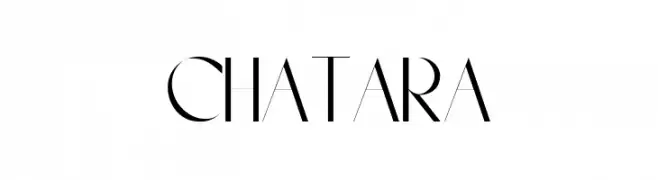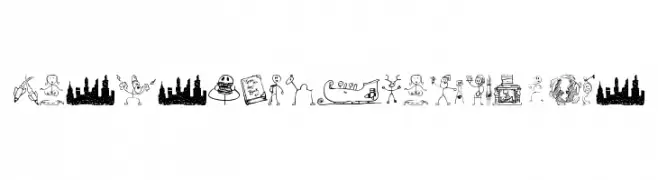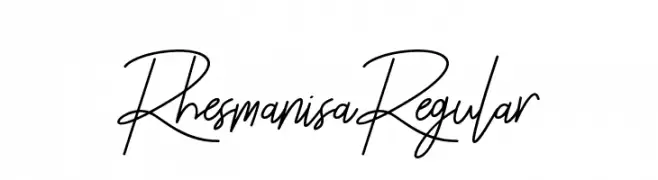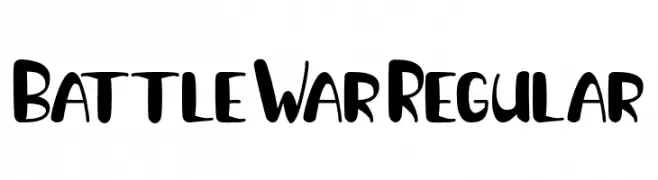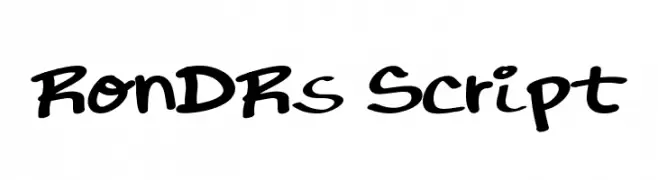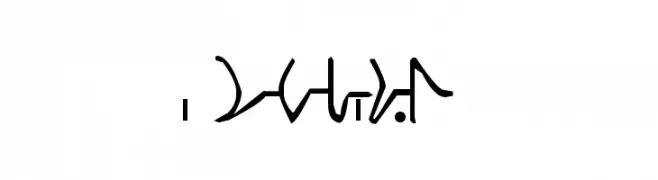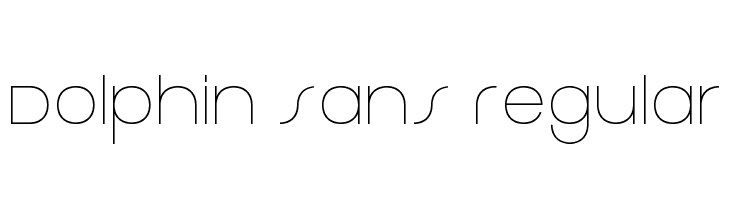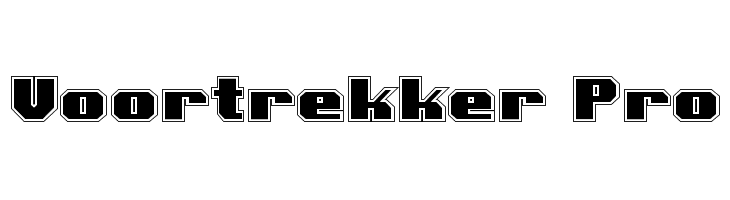
A modern, high-contrast font with sleek, elongated characters.
A playful dingbat font with holiday-themed illustrations.
A fluid, elegant handwritten cursive font with a modern touch.
A bold, dynamic font with playful yet assertive characters and a modern aesthetic.
A bold, playful script font with a handwritten feel and rounded edges.
Ornamental floral and decorative glyph set with vintage flair.
A futuristic and abstract font with geometric shapes and lines.
A fluid, elegant script font with a handwritten calligraphic style.